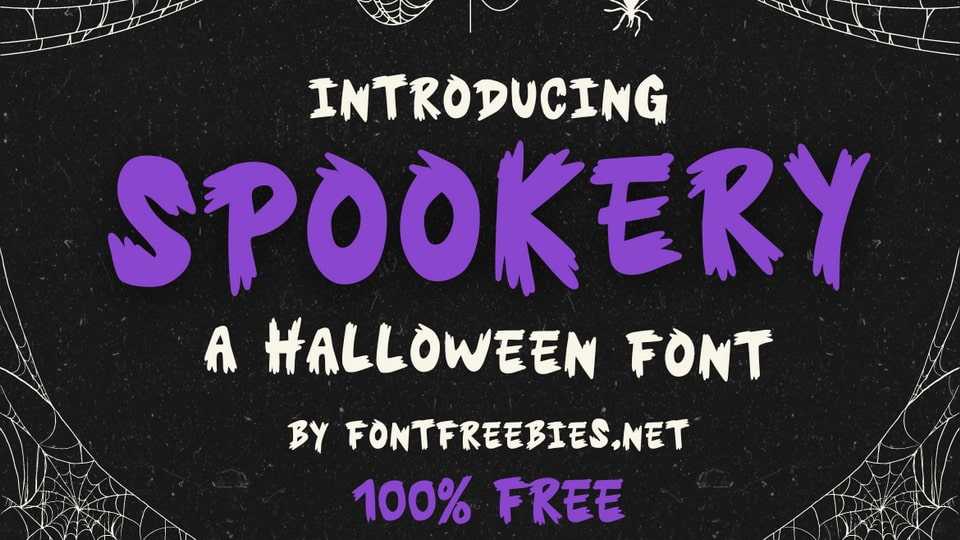
Download Spookery font, a quirky and spooky Halloween typeface designed to add a playful yet haunted touch to any project.
Designer: FontFreebies by IanMikraz